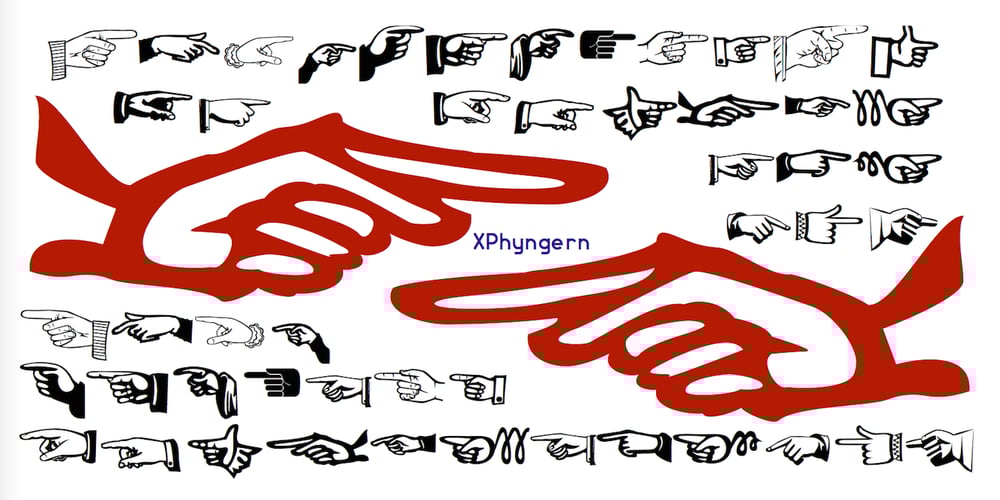
XPhyngern Font Family was designed by Robert Schenk and published by Ingrimayne Type. XPhyngern contains 1 styles and family package options. XPhyngern is a collection of pointing fingers taken from a variety of sources. Some come from the 19th century, when there were a great many used. Others are based on fingers I found in reproductions of medieval manuscripts. If you need a interesting pointing finger, try this typeface.